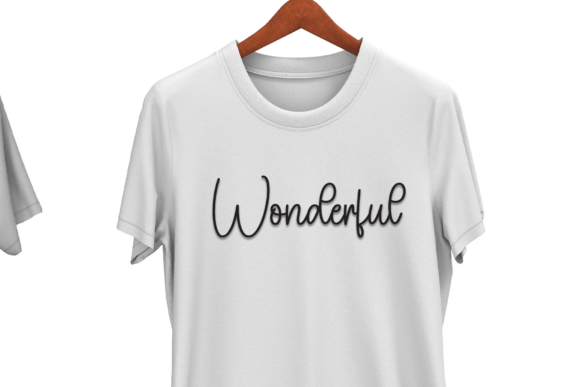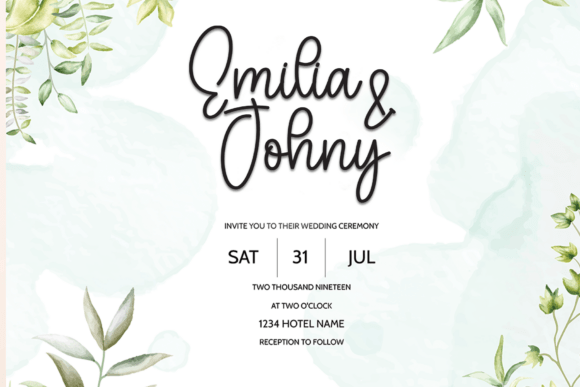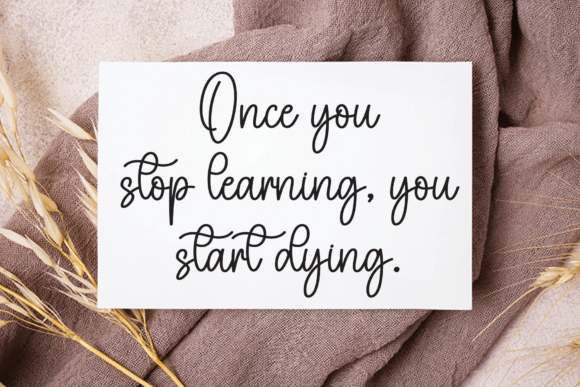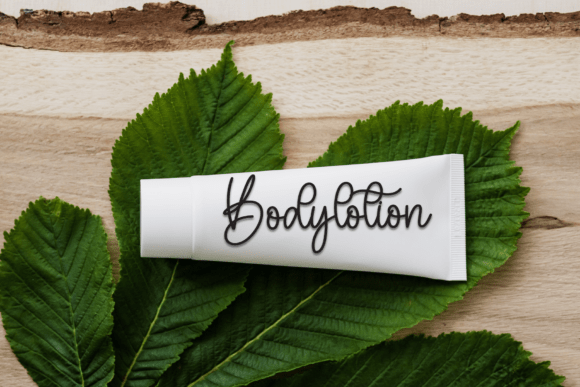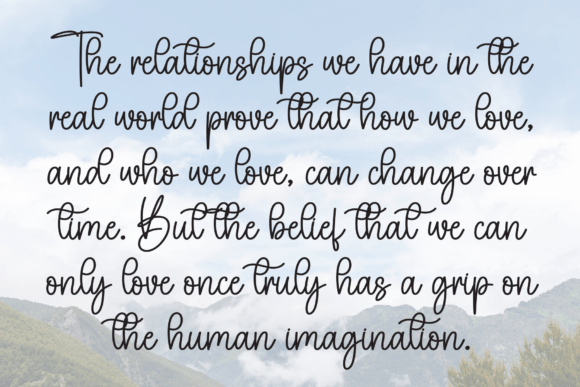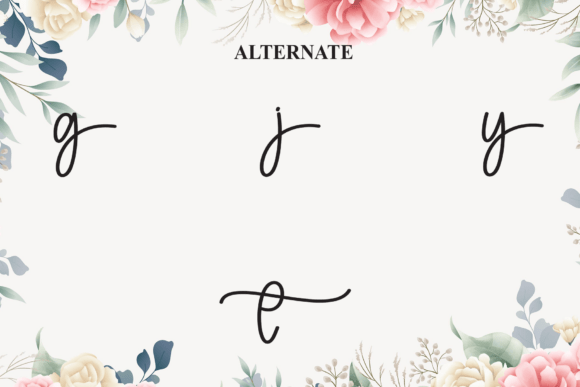
The Perfect Harmony of Letters: Discovering Britney Font
Have you ever stared at a blank page, feeling the weight of a creative project on your shoulders? The cursor blinks impatiently, waiting for your next move. In those moments, the right font can be the difference between a lackluster design and a masterpiece. It’s where the Britney Font comes in – a delicate and elegant handwritten font that’s sure to capture your heart.
With its distinct and well-balanced letters, Britney Font is more than just a typeface – it’s a canvas waiting to be explored. Whether you’re designing a wedding invitation, a birthday card, or a social media post, this font’s incredibly versatile style will elevate your creations to new heights. Its value lies in its ability to add a touch of sophistication and whimsy to your designs, making it a valuable asset for any designer.
Britney Font Key Features
- Font Style: Script font with a cursive and handwritten feel.
- Unique Characteristics: Features a unique blend of elegance and playfulness, making it suitable for various design applications, including logos, invitations, and advertisements.
Britney Font Review
As a designer, I was excited to dive into the Britney Font and see what it had to offer. Overall, I’d say it’s a solid choice for casual, display typography. ✨ The font’s rounded edges and friendly feel make it perfect for headings, titles, and short blocks of text.
One of the standout features of Britney Font is its versatility. ✨ It comes in a range of weights, from light to bold, making it easy to adjust the font’s appearance to suit your design needs. Additionally, the font includes a variety of styles, including script and handwritten options, which add a touch of personality to your designs.
While Britney Font is a great choice for display typography, it does have some limitations. ⚠️ The font’s legibility can be a concern at smaller font sizes, which may make it difficult to read in certain contexts. Additionally, the font’s rounded edges can make it look a bit dated or childish in some designs.
Overall, I’d say Britney Font is a great choice for designers who need a friendly, approachable font for display typography. While it may have some limitations, its versatility and range of styles make it a solid option for a variety of design projects.
- Round edges and friendly feel
- Versatile weight range (light to bold)
- Range of styles, including script and handwritten options
- Legibility can be a concern at smaller font sizes
- Rounded edges can look dated or childish in some designs
For best results, use the Britney Font for titles and headings, as it is a bold and playful font.
For best results, use the Britney Font for creative projects, such as social media graphics or flyers.
For best results, use the Britney Font for titles and headings in presentations or documents.
The Britney Font is ideal for:
– Creative projects, such as social media graphics or flyers.
– Titles and headings in presentations or documents.
– Blog posts or articles with a playful tone.
– Branding and marketing materials, such as logos or business cards.
Alternatives to Britney Font for Designers
Great Vibes is a modern script font designed by Handmade Fonts. It is perfect for creating a fun, playful, and elegant look. Use it for wedding invitations, greeting cards, or any project that requires a touch of sophistication.
Comparison to Britney Font: While Britney Font has a more minimalist and bold feel, Great Vibes Font has a softer, more elegant touch. Great Vibes Font is ideal for projects that require a more feminine and whimsical feel.
Playfair Display is a luxurious script font designed by Claus Eggers Sørensen. It is perfect for creating a high-end, elegant look. Use it for luxury branding, magazines, or any project that requires a touch of sophistication.
Comparison to Britney Font: While Britney Font has a more modern and edgy feel, Playfair Display Font has a more traditional and elegant touch. Playfair Display Font is ideal for projects that require a more luxurious and refined feel.
What is the recommended font size for using Britney Font?
The recommended font size for using Britney Font is between 12 and 24 points. This size range provides optimal legibility and readability for body text and headings. For larger font sizes, such as titles and headings, you can use font sizes up to 48 points or more, depending on your design requirements.